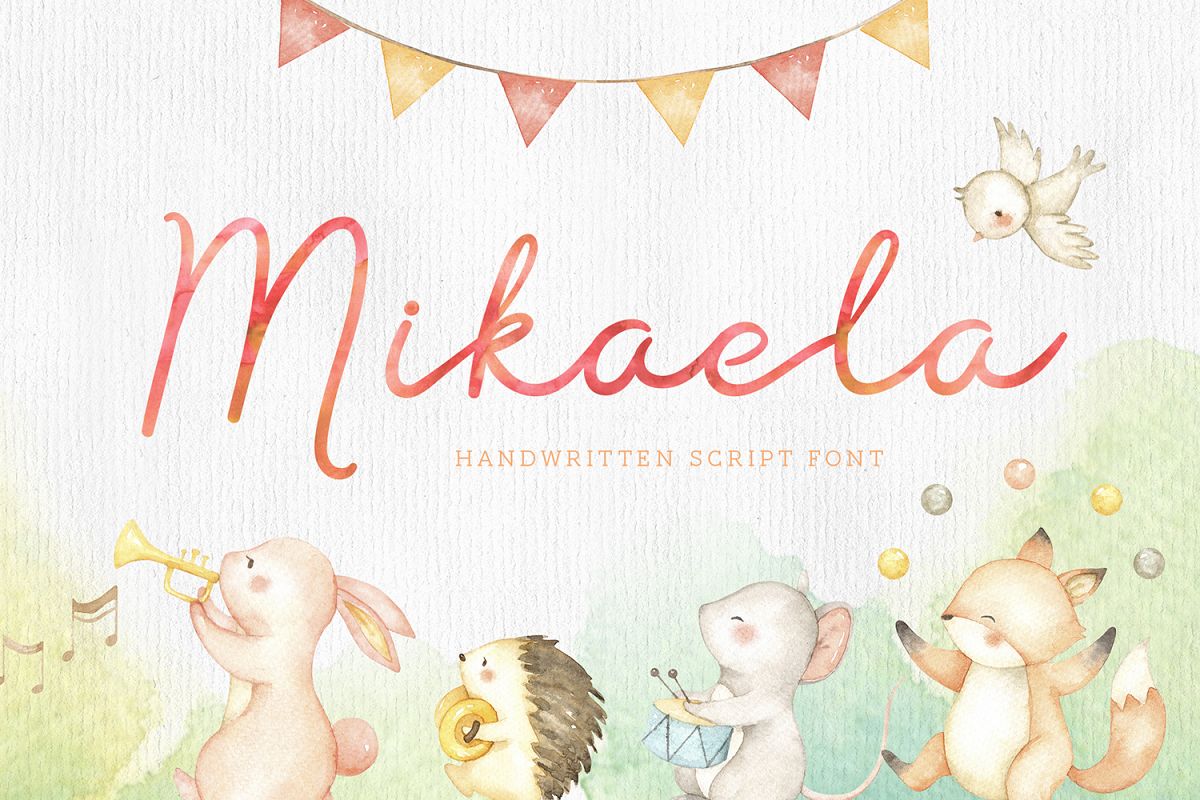
Mikaela Script
Mikaela is a handlettered script font with a feminine touch, perfect for any design & craft projects! Ideal for quotes, home decor, wedding invites, blog header, branding, t-shirts, posters & etc! Includes 13 beautiful alternates for ampersand/& that you can design with too!